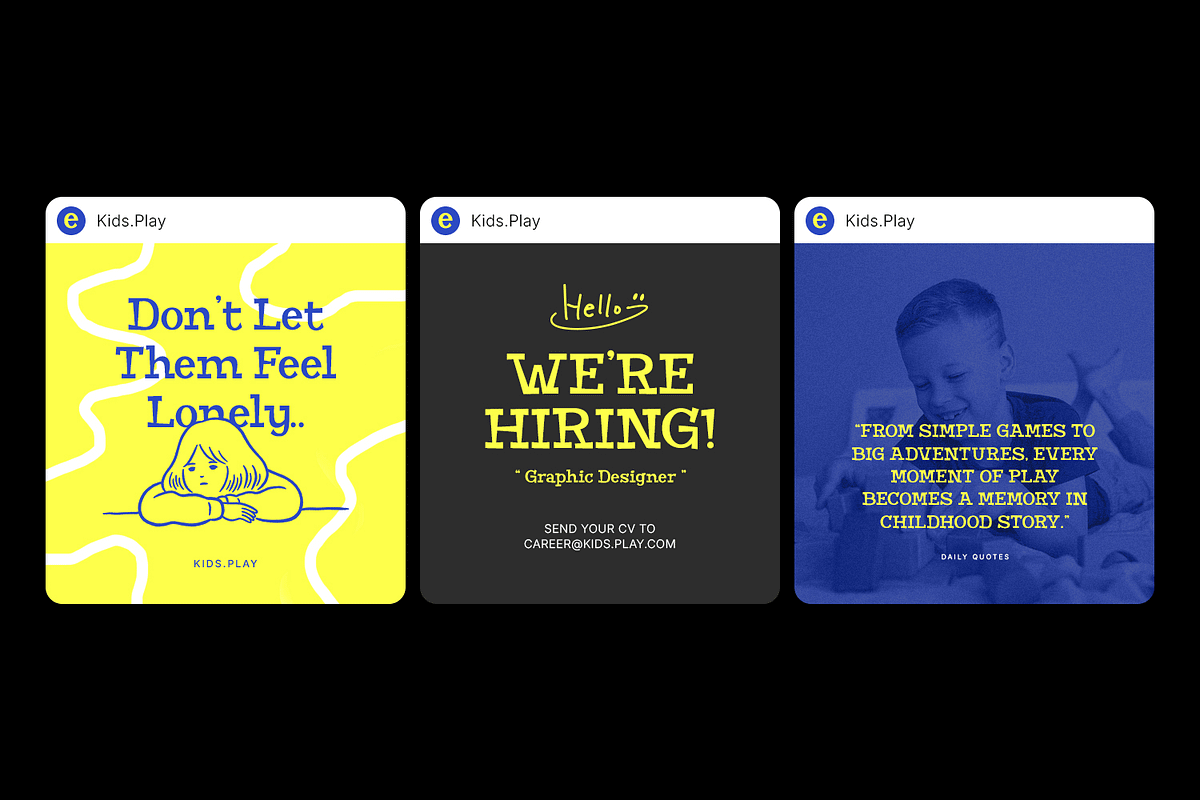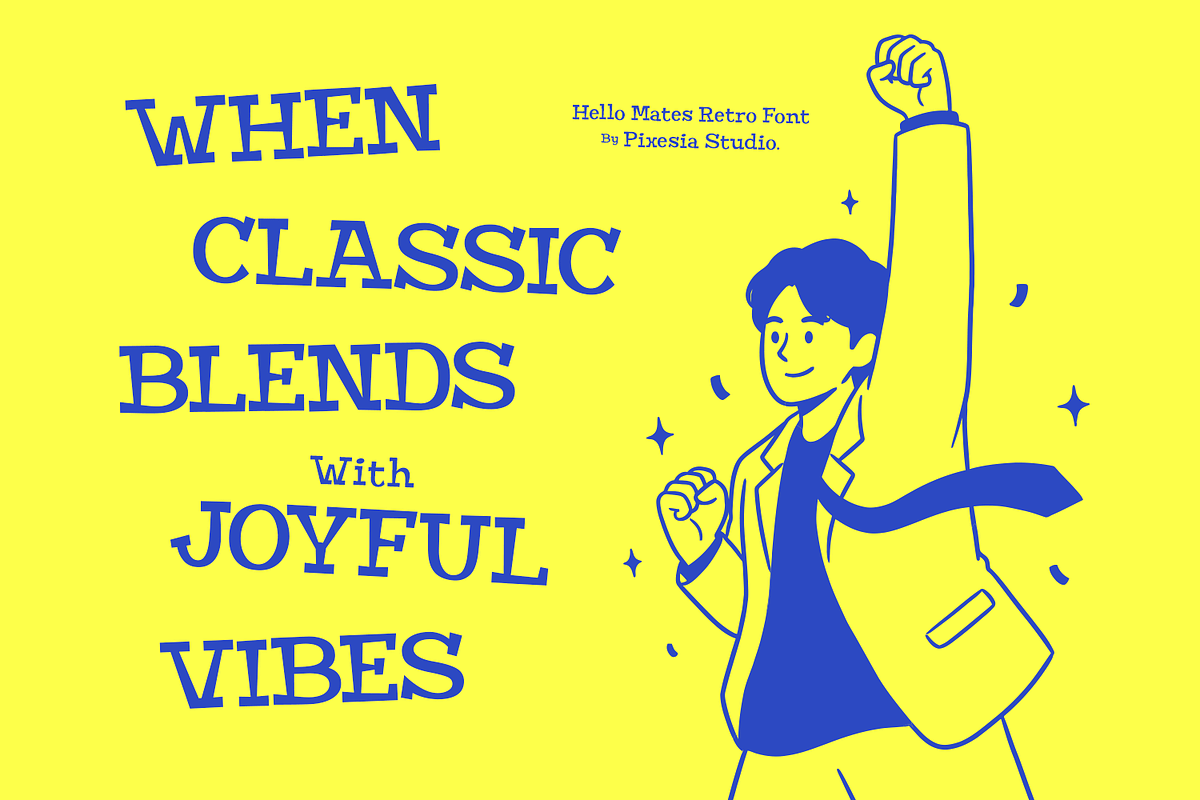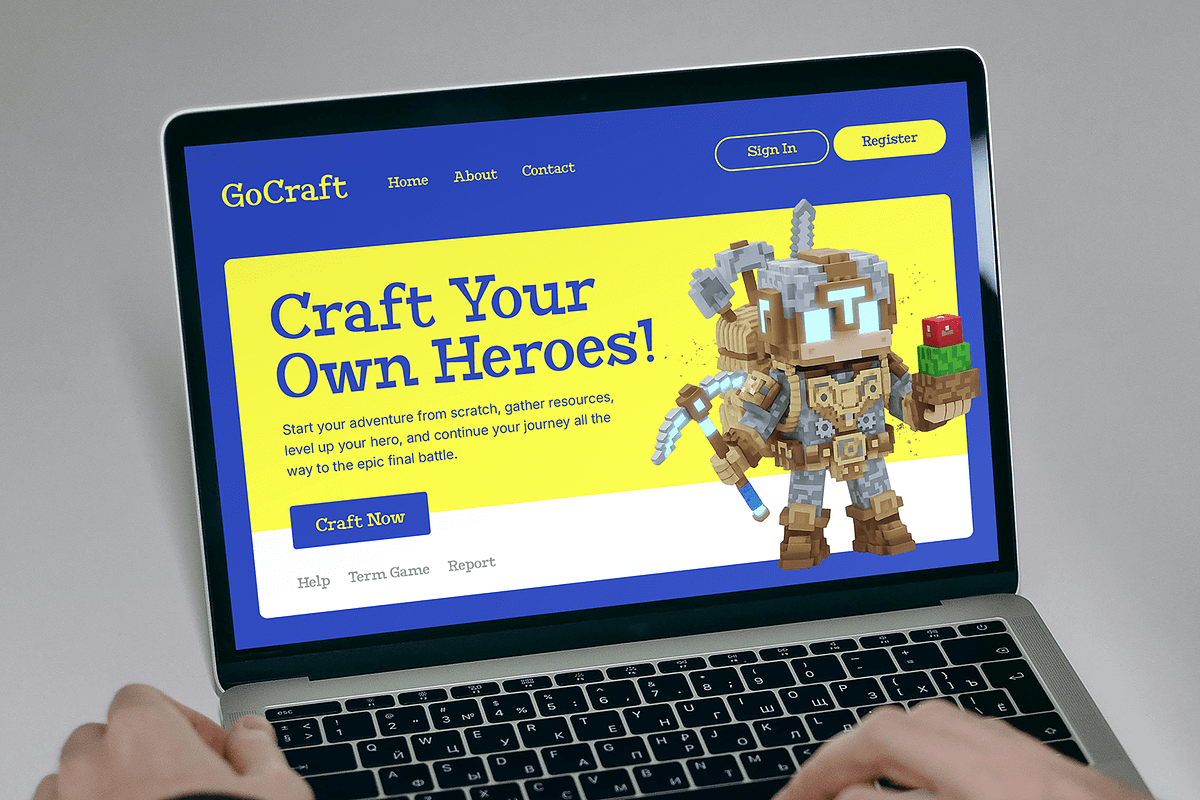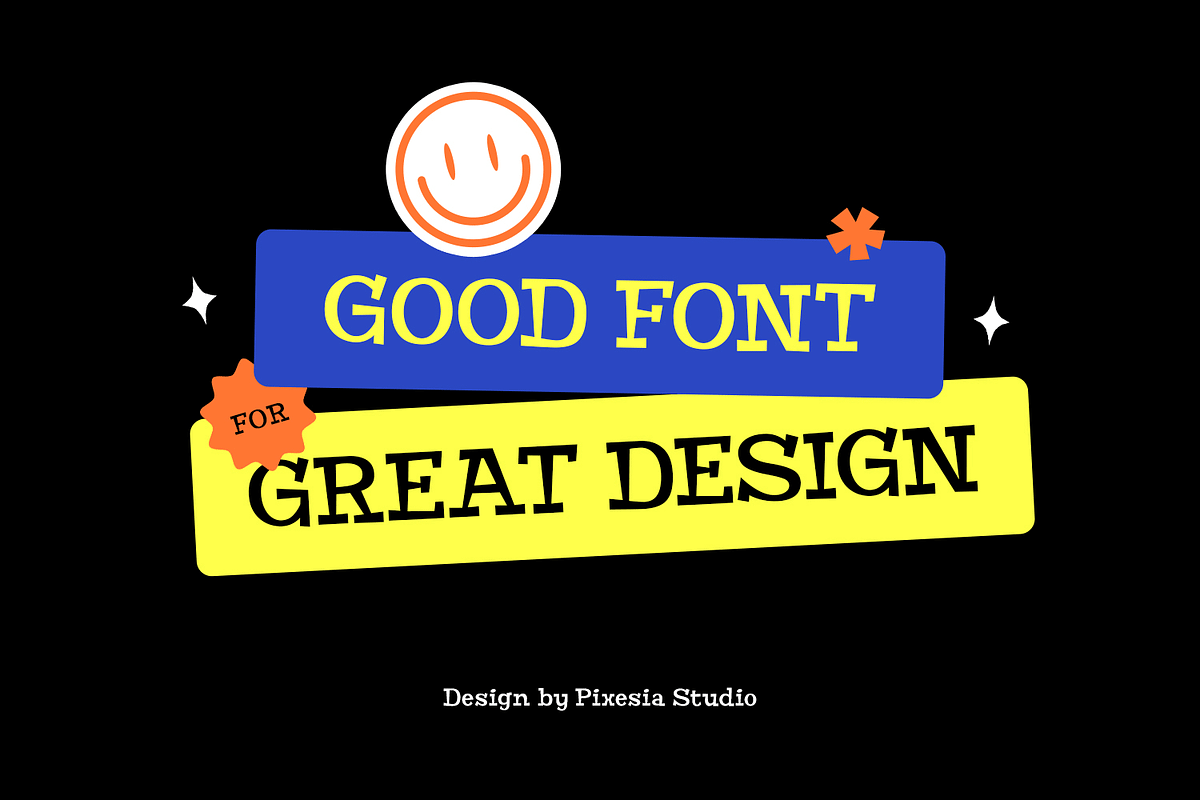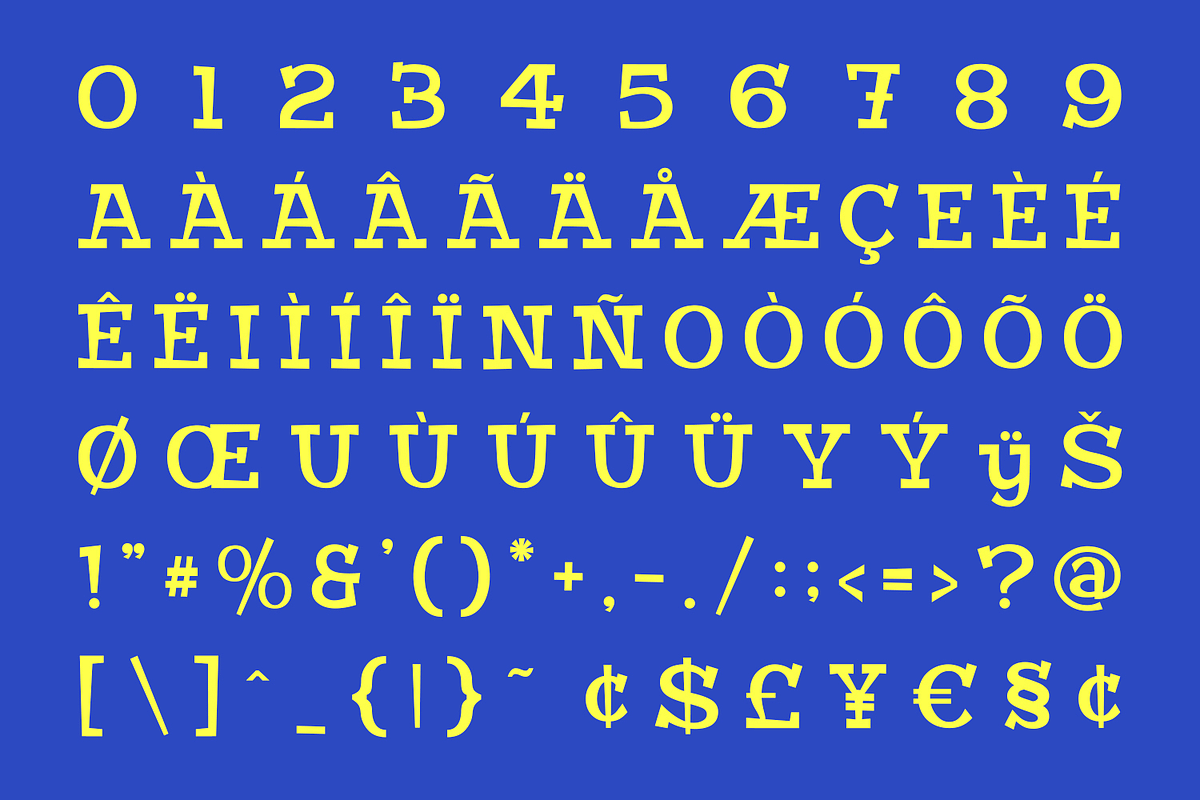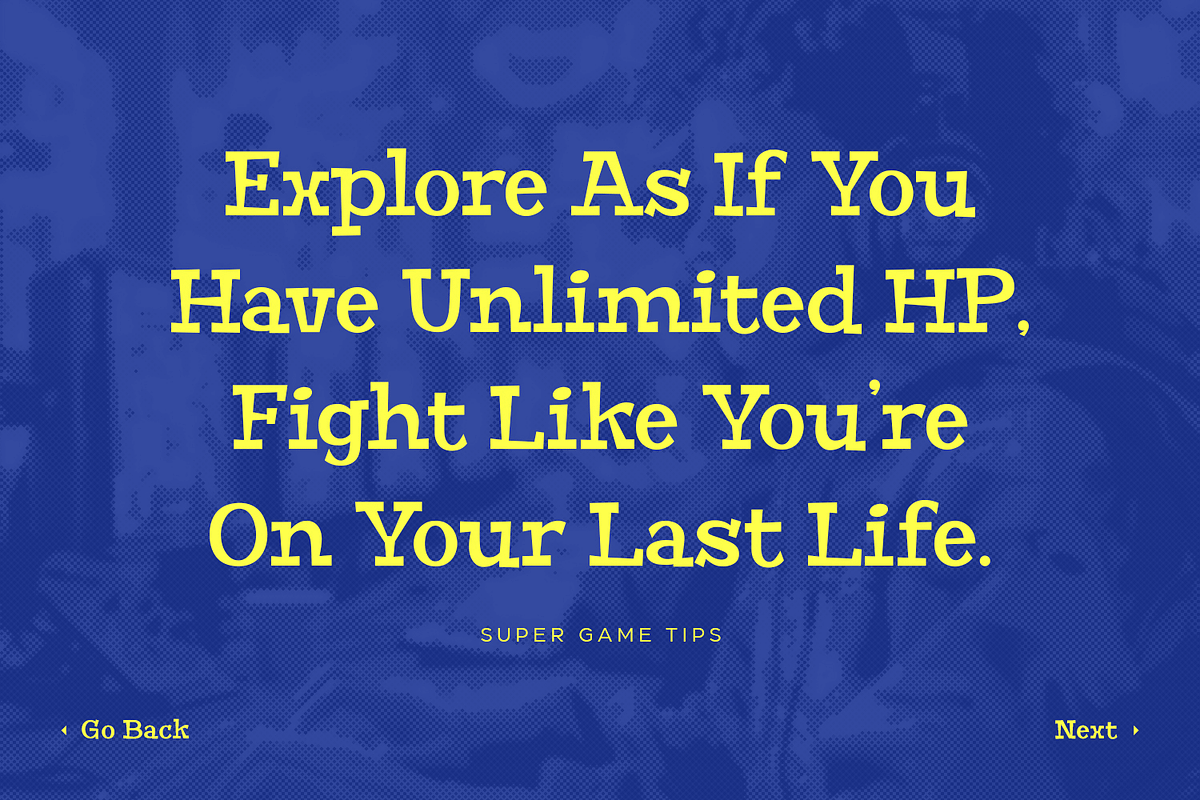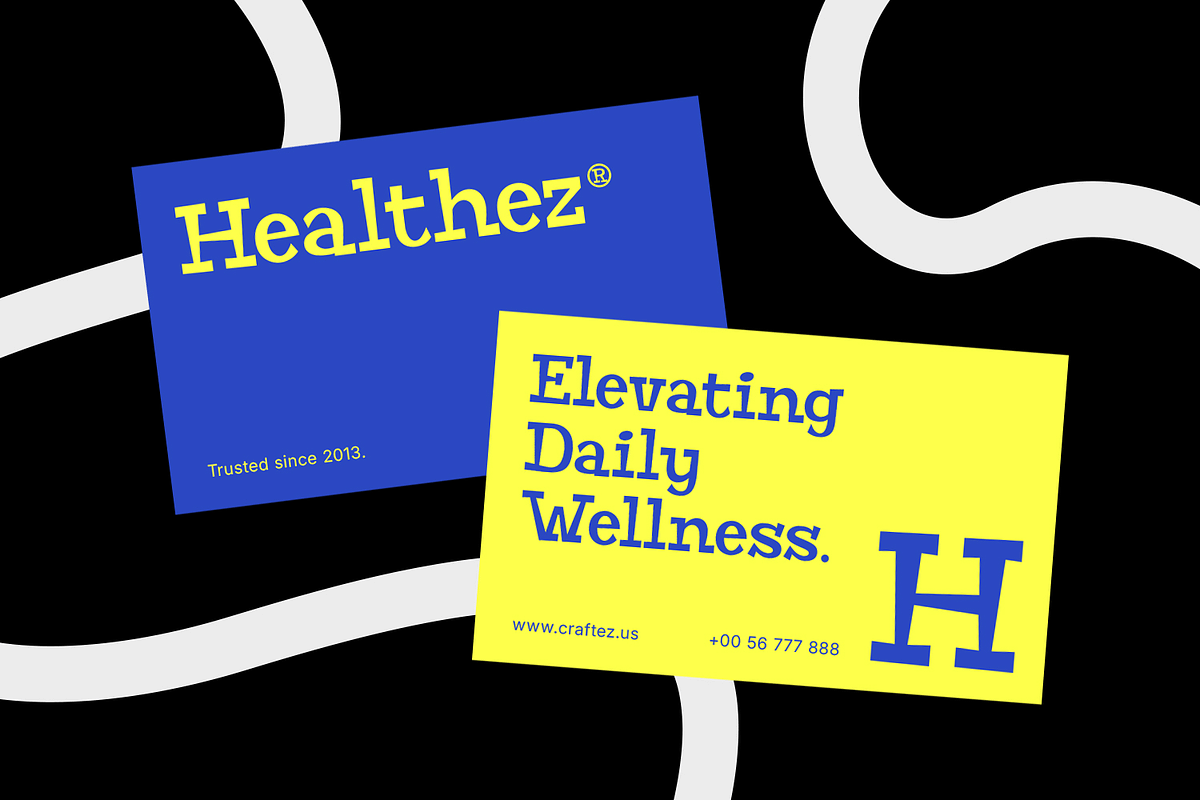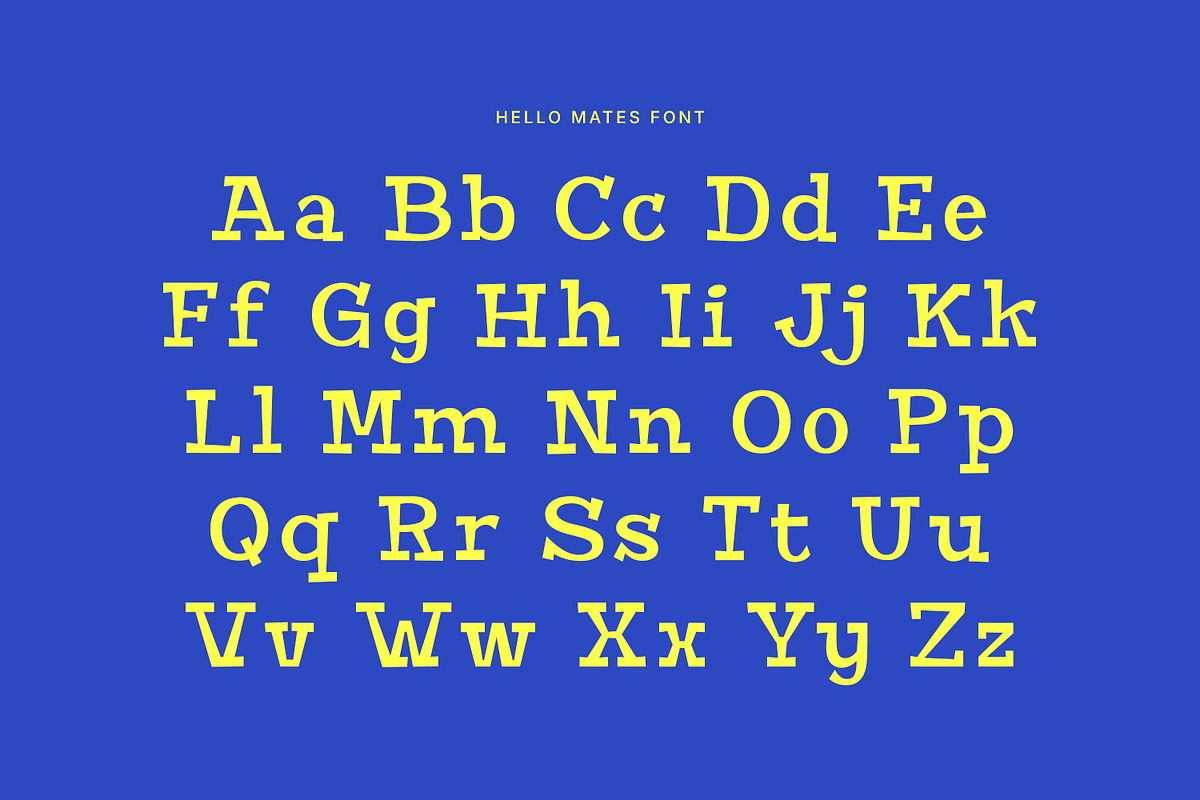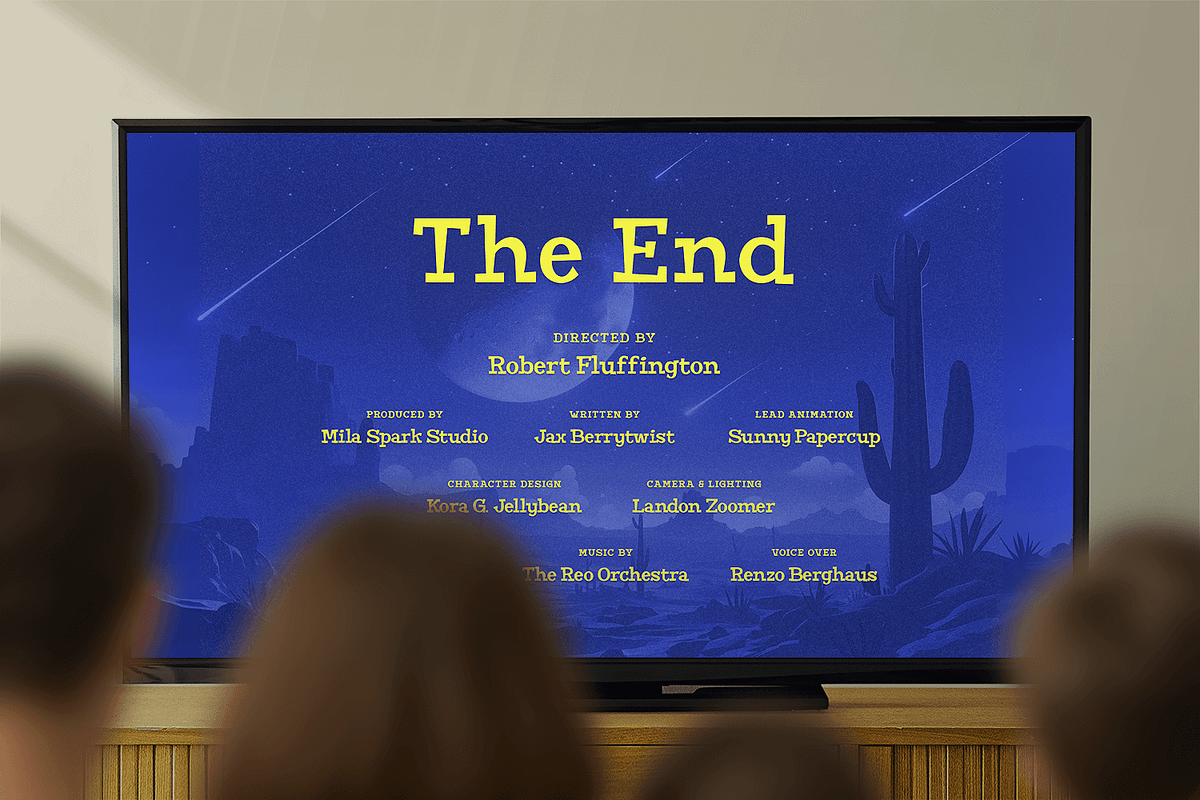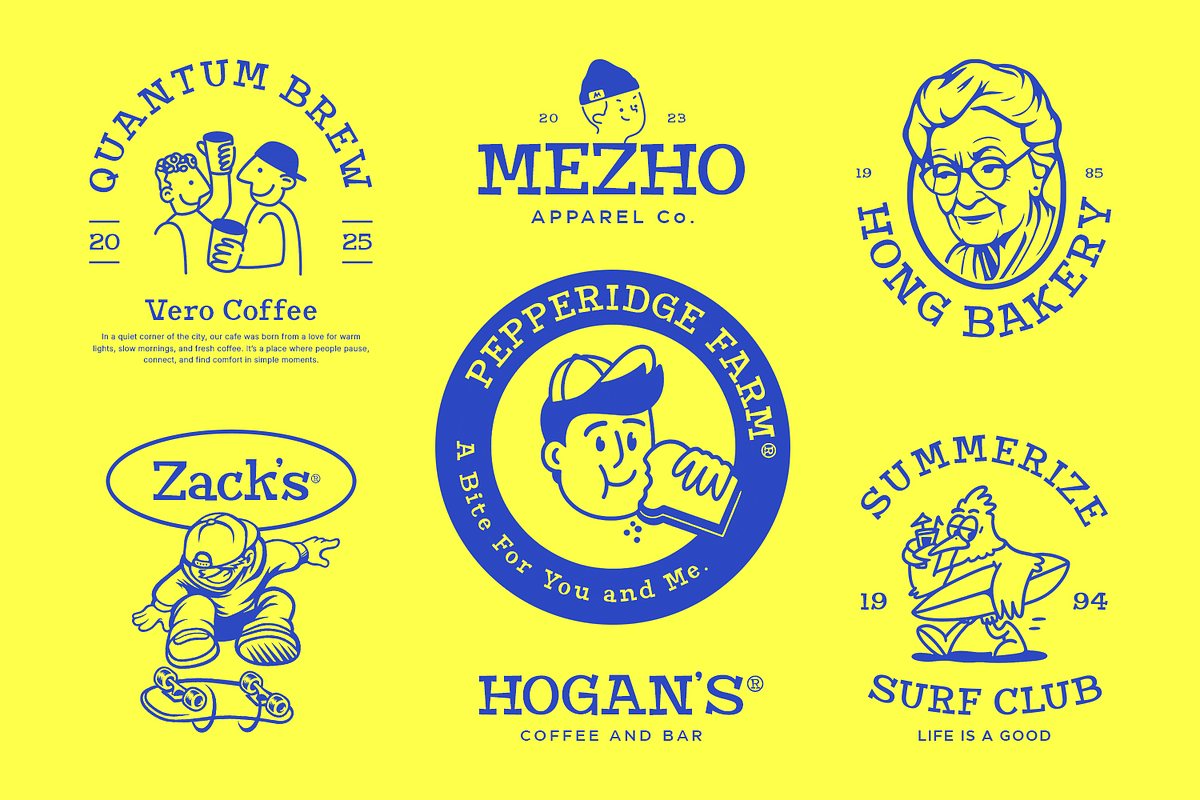
Hello Mates – Retro Slab Serif Font
Introducing Hello Mates – Retro Slab Serif Font
Hello Mates is a chunky slab serif font inspired by retro craft traditions and the warm character of handmade lettering. With bold forms, crafted edges, and a smooth classic flow, Hello Mates brings the nostalgic charm of vintage typography while staying clean, chic, and highly readable. Its friendly confidence gives every title a crafted personality with a stylish retro attitude.
Perfect for DIY crafts, packaging, magazines, website, social media post, posters, branding, editorial designs, handmade products, and standout visual identities, Hello Mates blends vintage retro style with a fresh contemporary spirit. Whether you're building a classic logo, an eye-catching headline, or a crafted modern-vintage campaign, Hello Mates delivers strong impact with effortless charm.